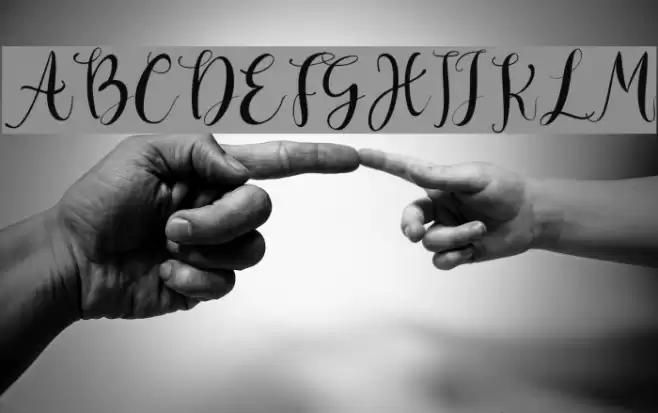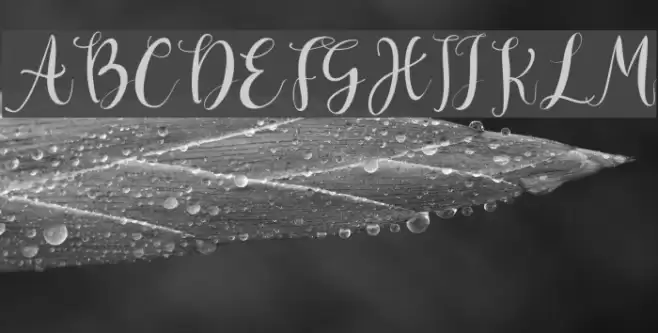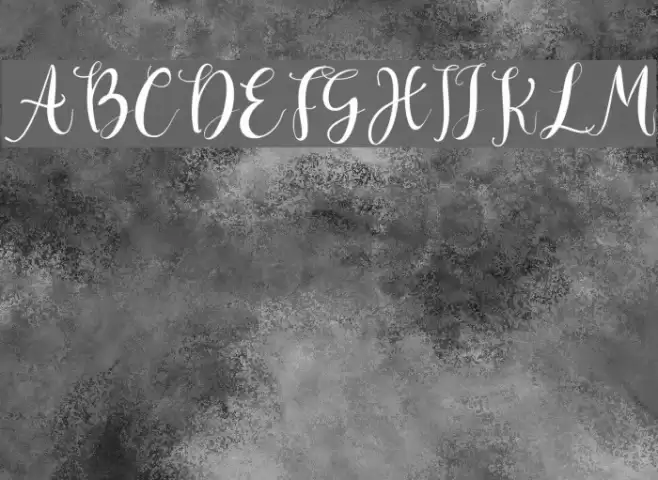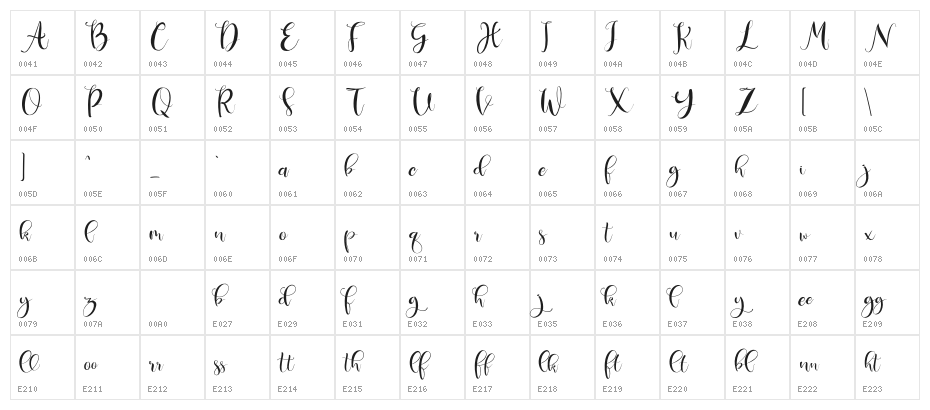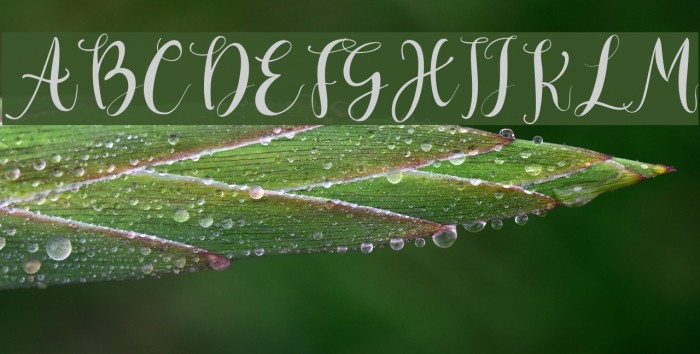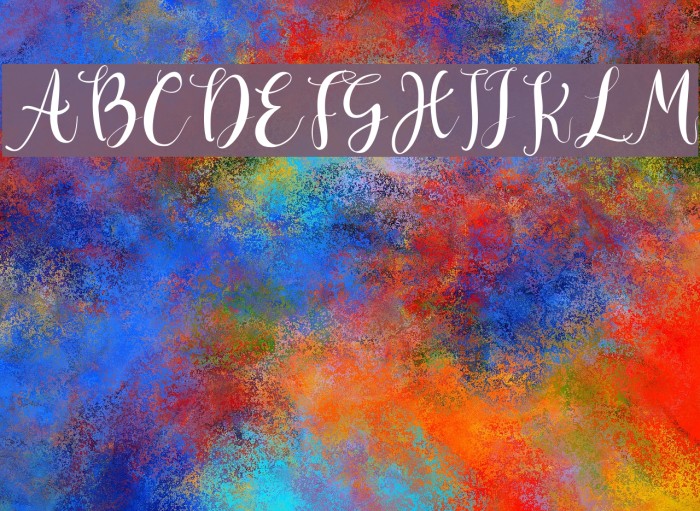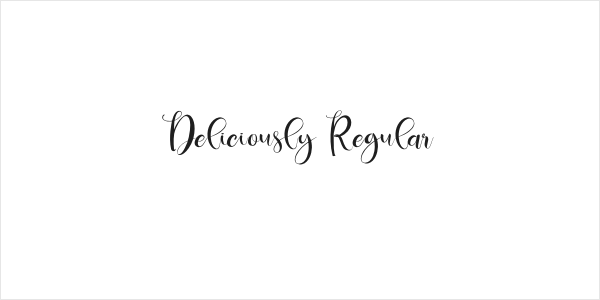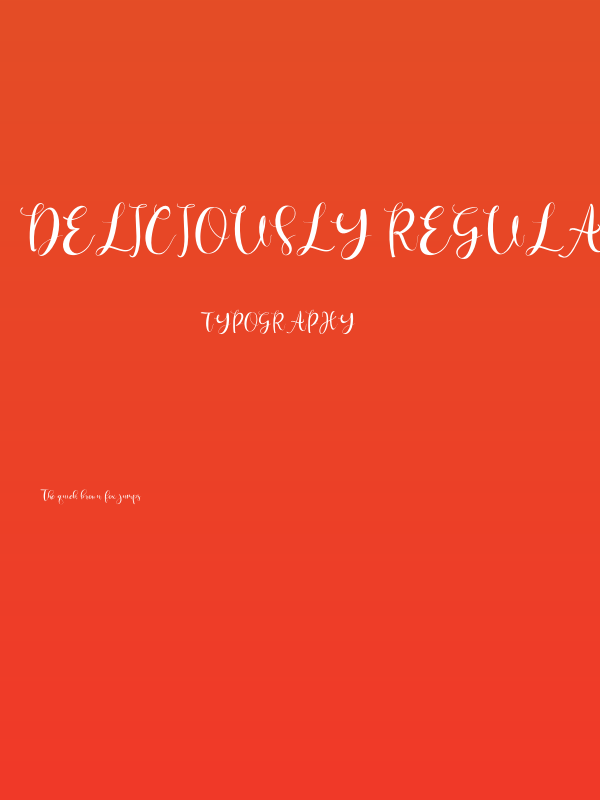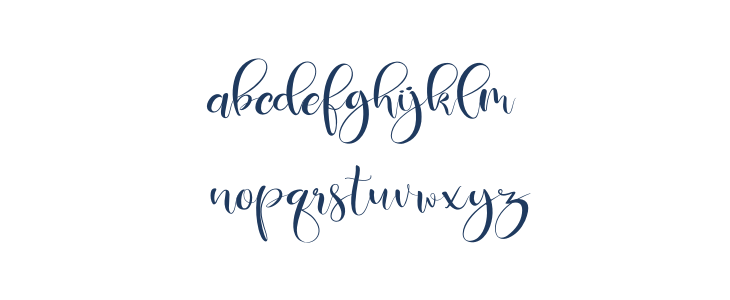
Deliciously Regular Font
Deliciously Regular Description
This font features an elegant and flowing script style, characterized by its smooth, cursive strokes and graceful curves. The uppercase letters are ornate, with flourishes that add a touch of sophistication and charm. The lowercase letters maintain a consistent style, with a slightly more restrained design that complements the uppercase characters. The font's overall appearance is both stylish and legible, making it suitable for a variety of design applications. The special characters are framed with decorative elements, enhancing the font's artistic appeal.
An elegant and flowing script font with ornate uppercase and smooth lowercase letters from Uncategorized fonts.
- Proposed Projects: Ideal for wedding invitations, greeting cards, branding, and elegant logo designs.
- Use Case: Logos, Invitations, Greeting Cards